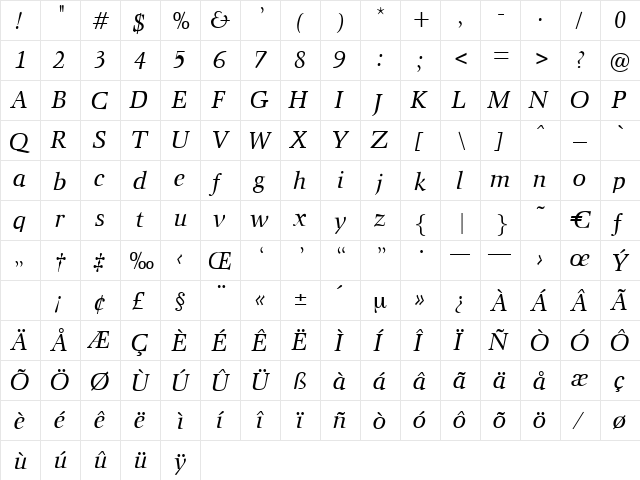
PacificItalic Regular
Design Context for PacificItalic Typeface
PacificItalic is a composed and adaptable typeface that performs quietly and consistently across a wide range of design contexts. Its italic angle brings a sense of urgency and motion to the letterforms.
Pro Tip: Use PacificItalic for emphasis, pull quotes, and subheadings where its slanted energy can add rhythm to the layout.